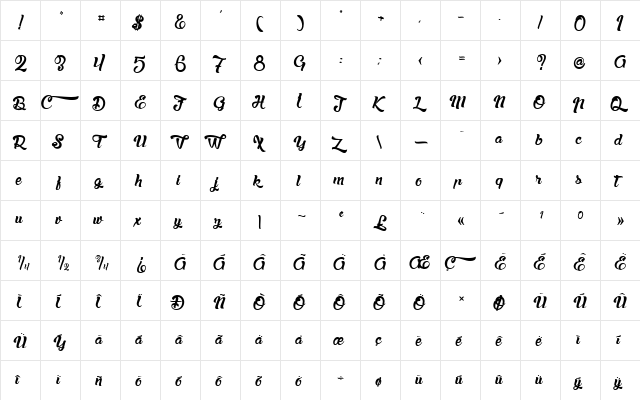
la Chatte ࠍaman Regular
Design Context for la Chatte ࠍaman Typeface
la Chatte ࠍaman is a composed and adaptable typeface that performs quietly and consistently across a wide range of design contexts.